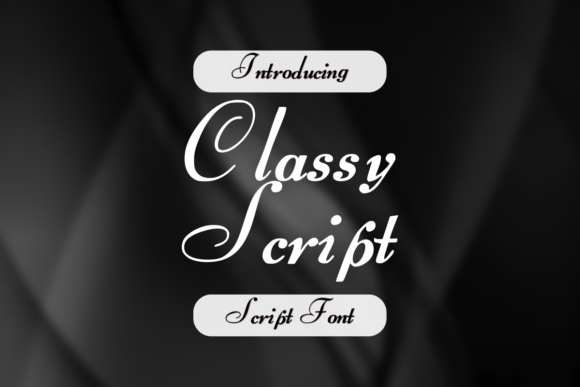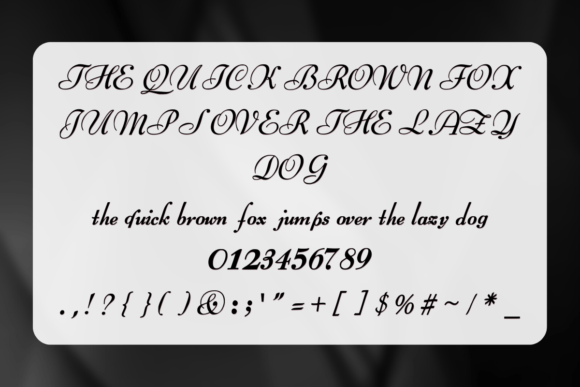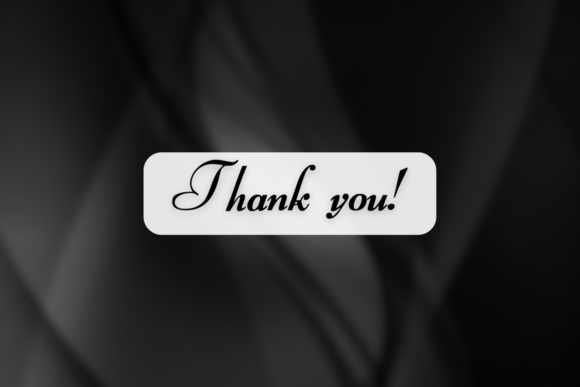
Classy Script Font
About Classy Script Font
Classy Script is a beautiful, chic and elegant script font that is perfect for any project that needs a classy and unique touch.
You can use it for lots of projects like wedding invitations, cards, logos, headlines, and feminine designs. Add it to your creative ideas and designs and make them stand out!